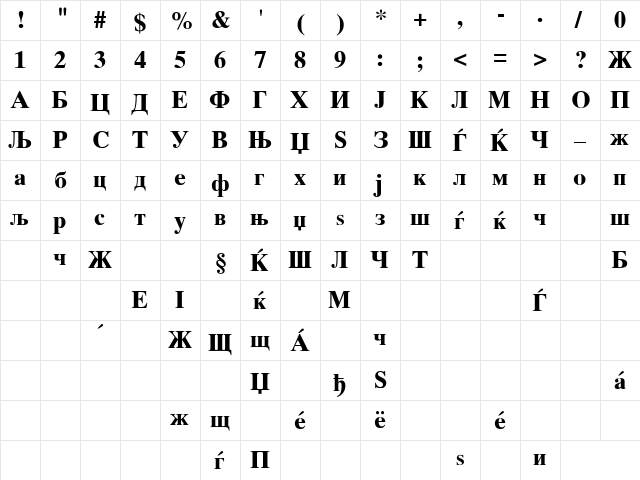
MakCirT Bold
Design Context for MakCirT Typeface
MakCirT offers clean, dependable letterforms without strong stylistic allegiance, making it a practical choice for designers who need flexibility. Its bold stroke weight gives it real presence on the page.